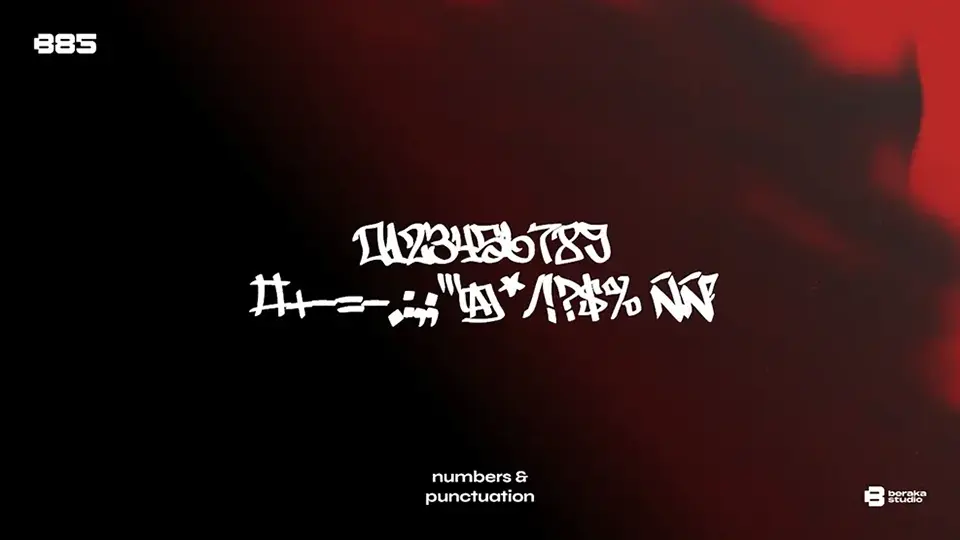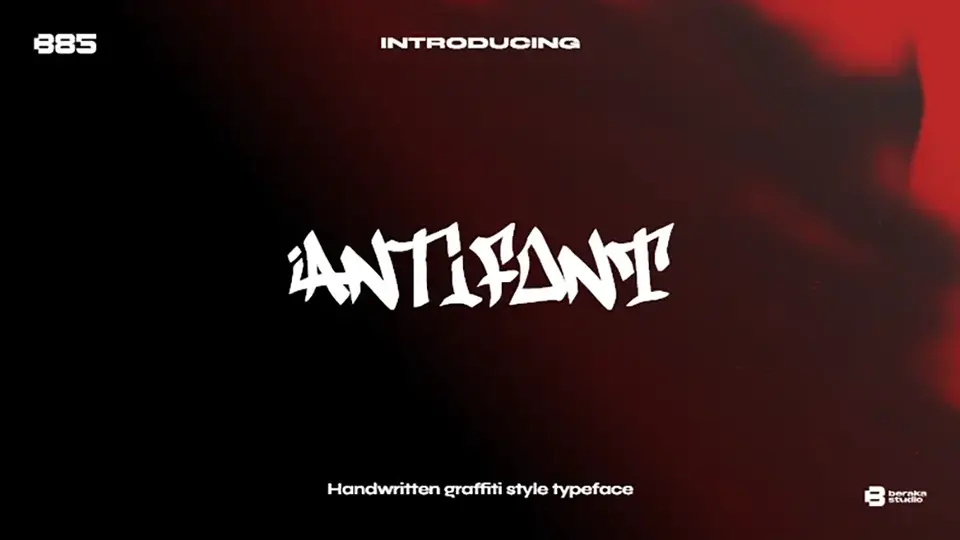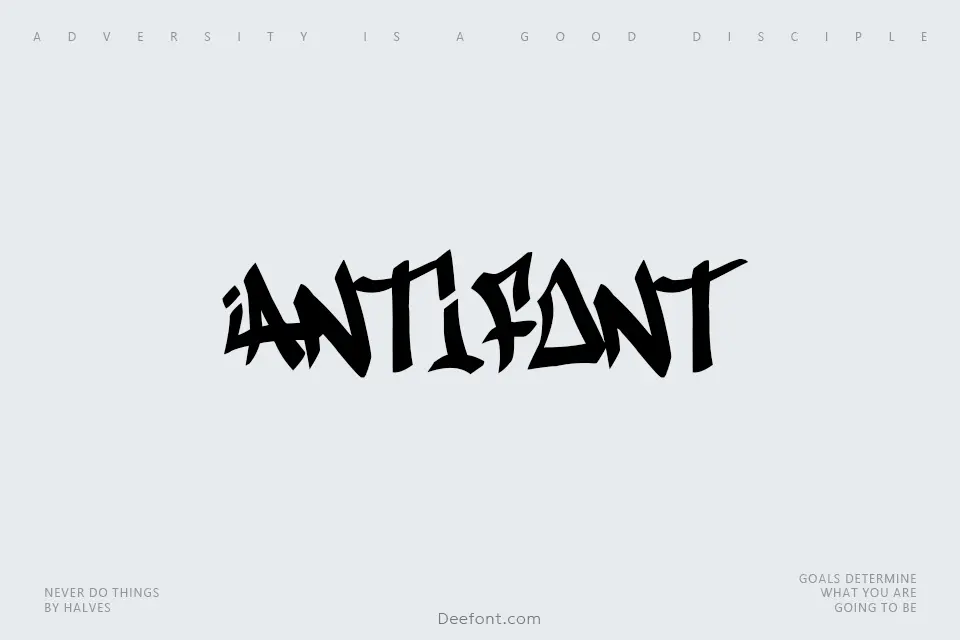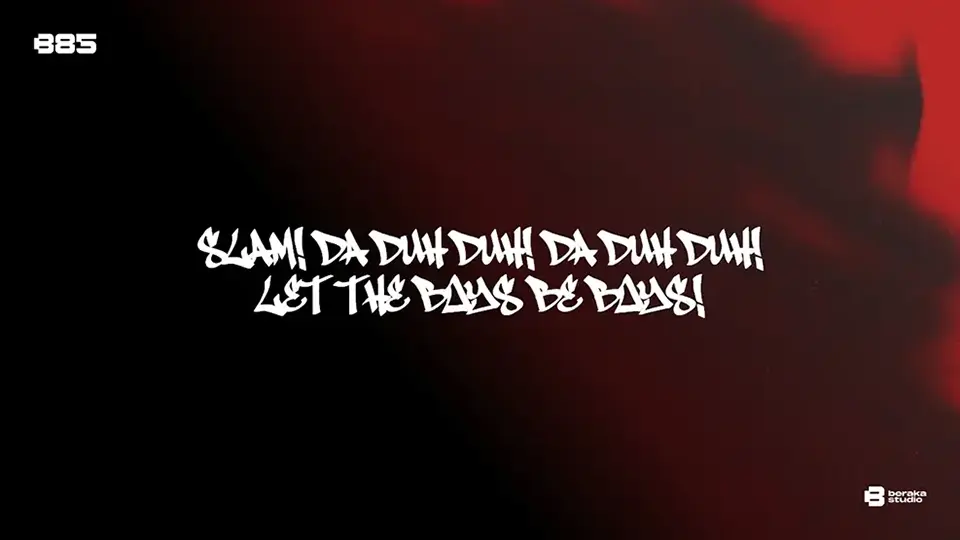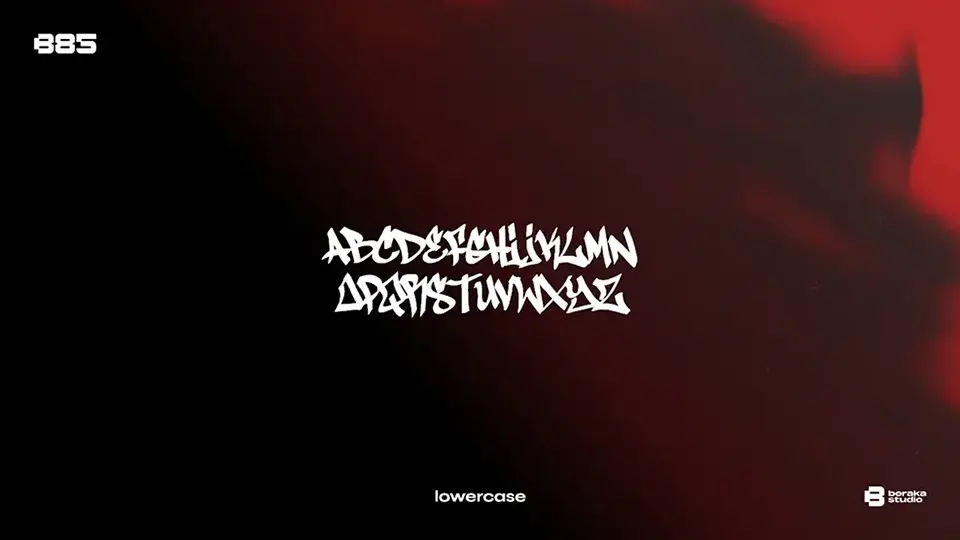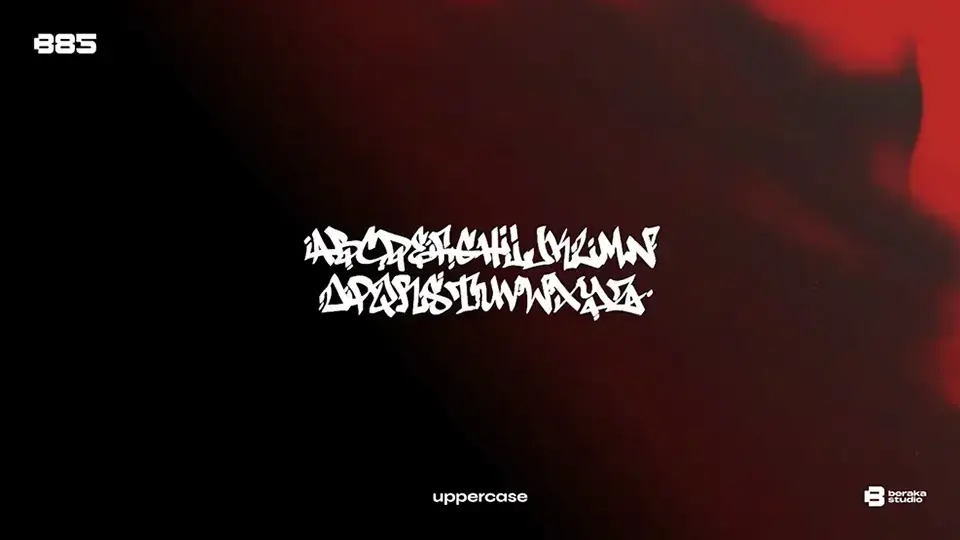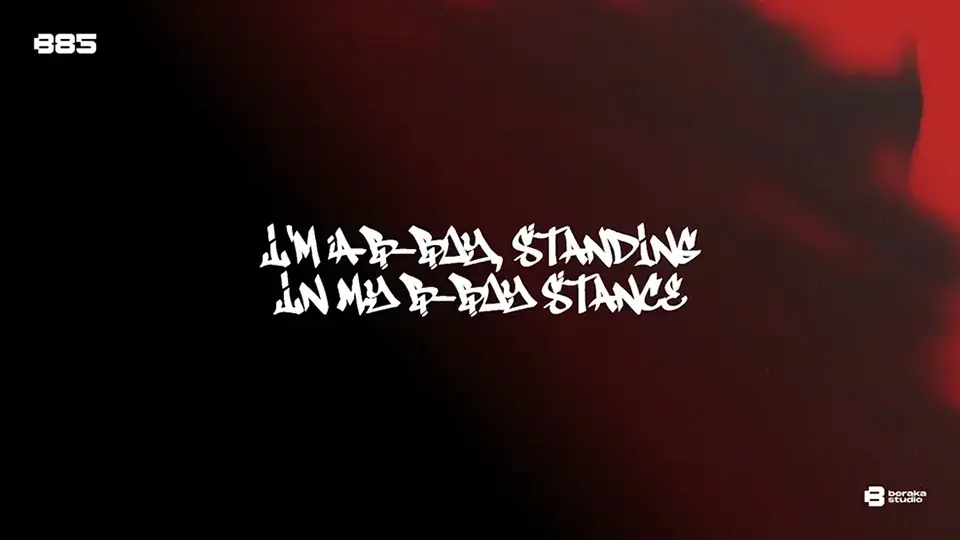
Antifont Font
Antifont is a vibrant graffiti and script typeface designed for creative projects. This dynamic font features a bold, artistic style with smooth letterforms that bring character and energy to any design. Perfect for branding, posters, titles, and eye-catching typography, Antifont offers a free demo version with uppercase and lowercase letters. The full version with numbers, punctuation marks, and symbols is available for purchase, making it an excellent choice for designers seeking authentic street-style aesthetics combined with professional quality.